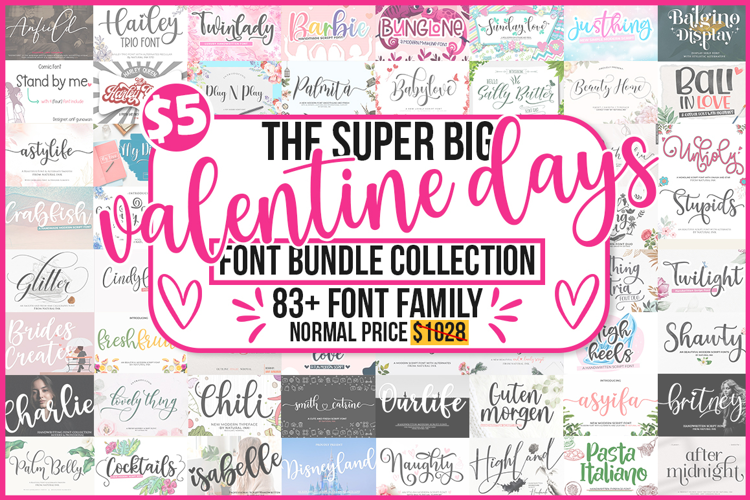
The Super Big Valentine Days Font Bundle
Valued at $1,028, this elegant collection includes 83 font families featuring script, serif, and decorative styles. Perfect for wedding designs, branding, and a wide range of creative projects that need a romantic and classy touch.”